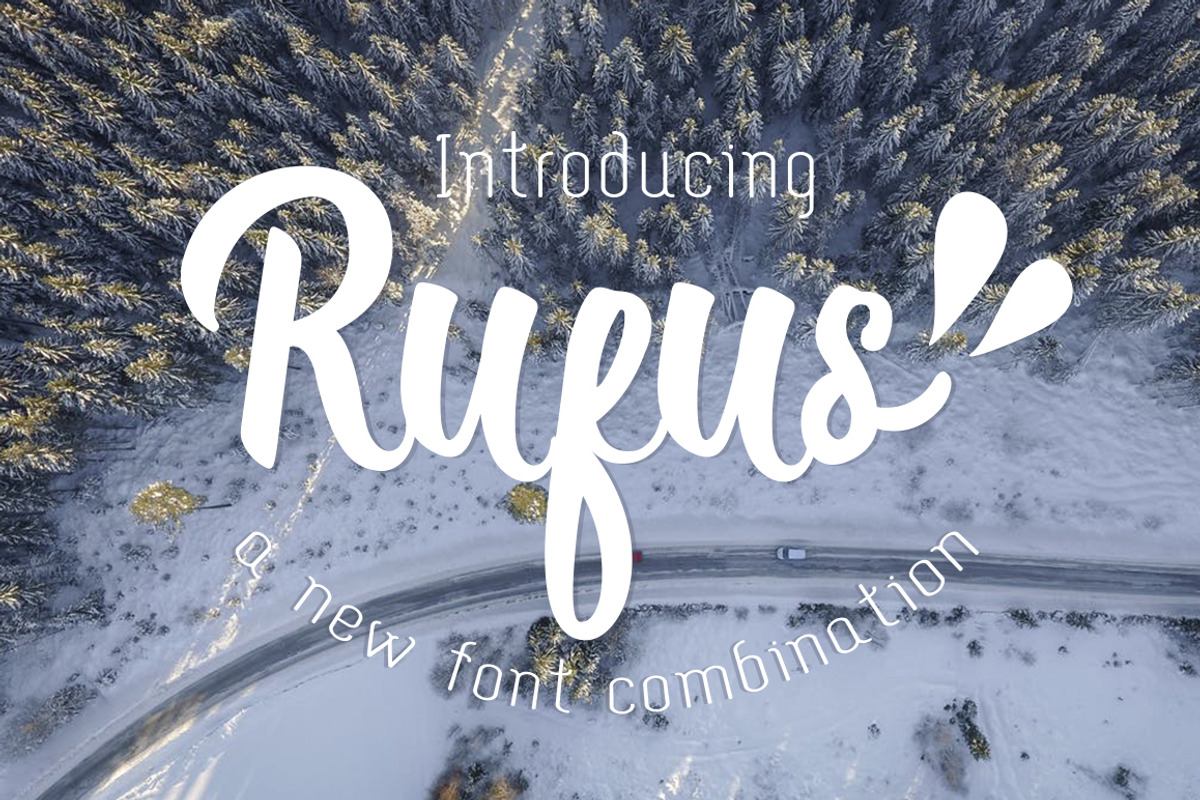
The Rufus Font Free Download is a bold, modern typeface that combines strength and style, making it perfect for headlines, logos, posters, and other eye-catching designs. With its sharp edges and distinctive character, this font adds a powerful impact to any project. Please note, for commercial use, a license must be purchased. You can download it for free for testing purposes.
The Rufus Font Free Download offers a clean, strong design that ensures readability while maintaining a modern and stylish appearance. Whether you're working on branding, marketing materials, or digital content, this font will help your designs stand out with confidence.